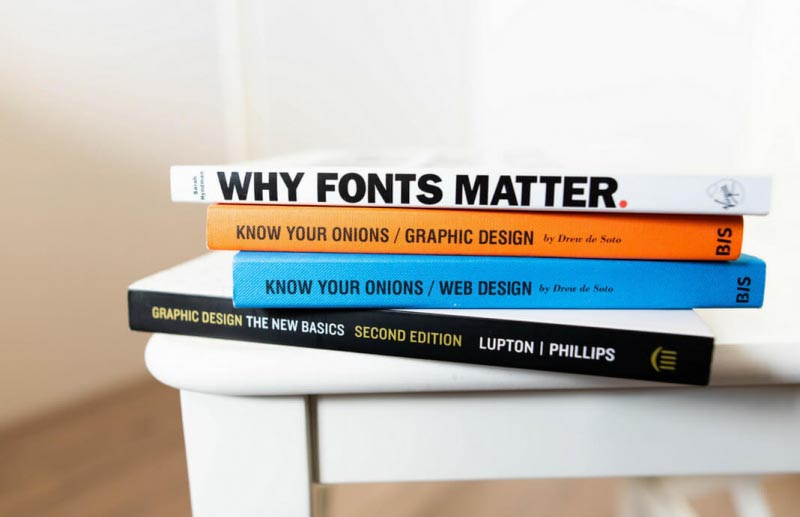
Guide To Custom Font Design For Brands | Digital Uncovered
What's common between Airbnb, Coca-Cola, IBM, Apple and Netflix? Yes, all of them use a custom font design. Custom font design carries the brand's character. It's an incredibly powerful asset considering it retains the brand's essence even when the logo and colours are stripped away.